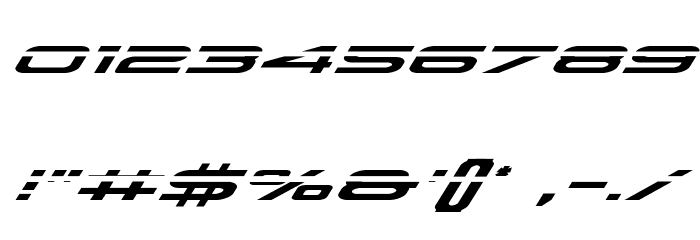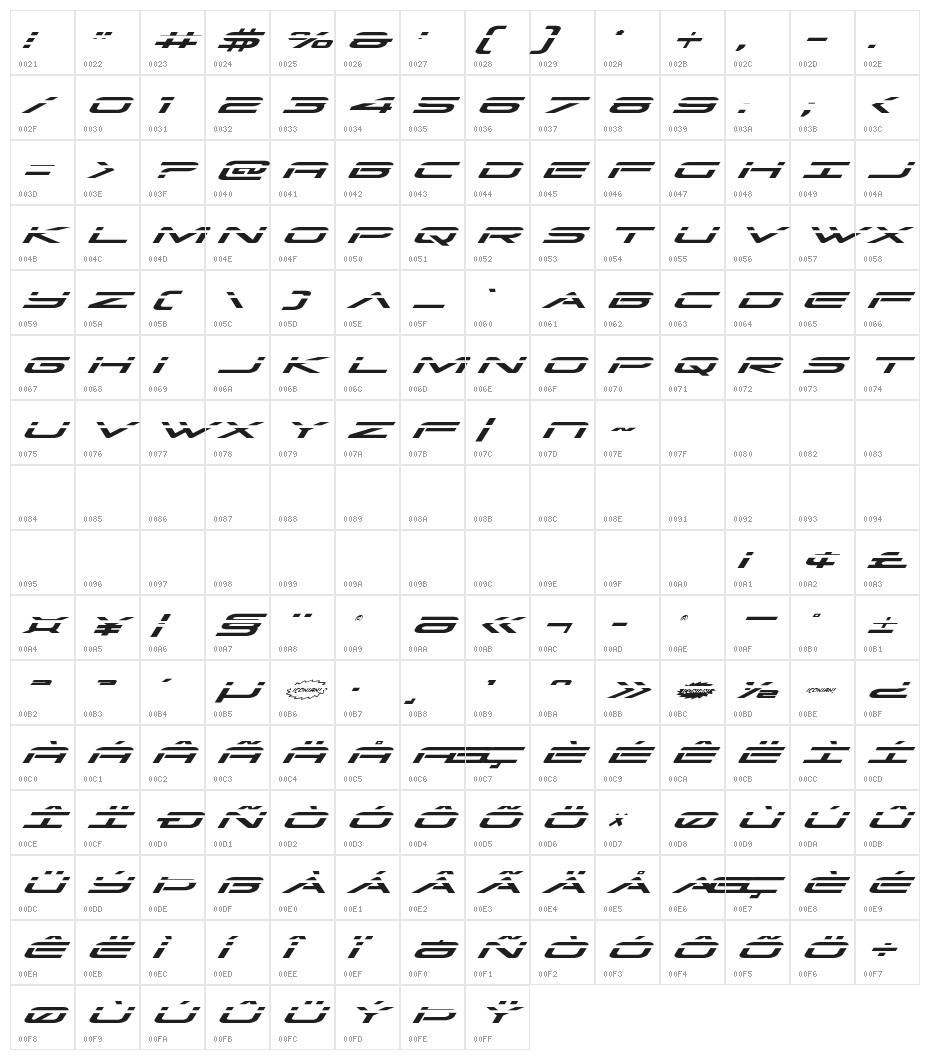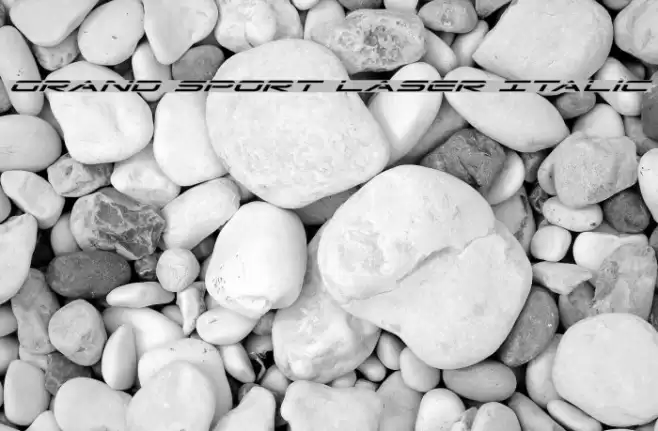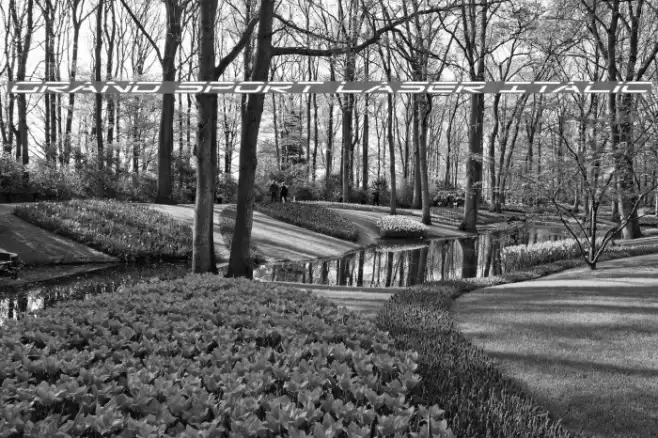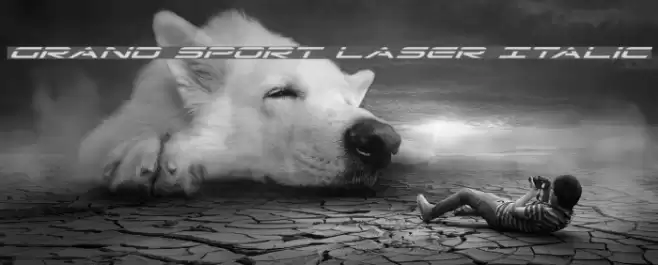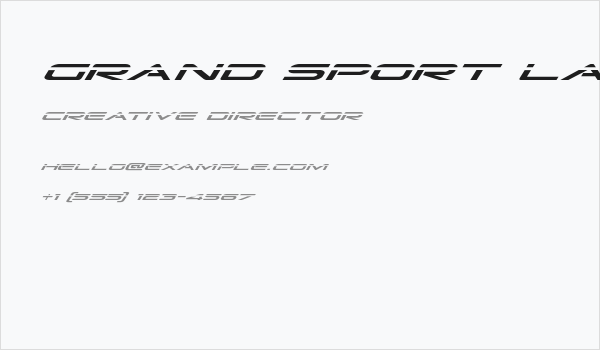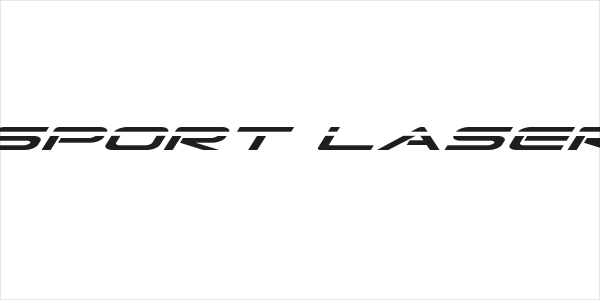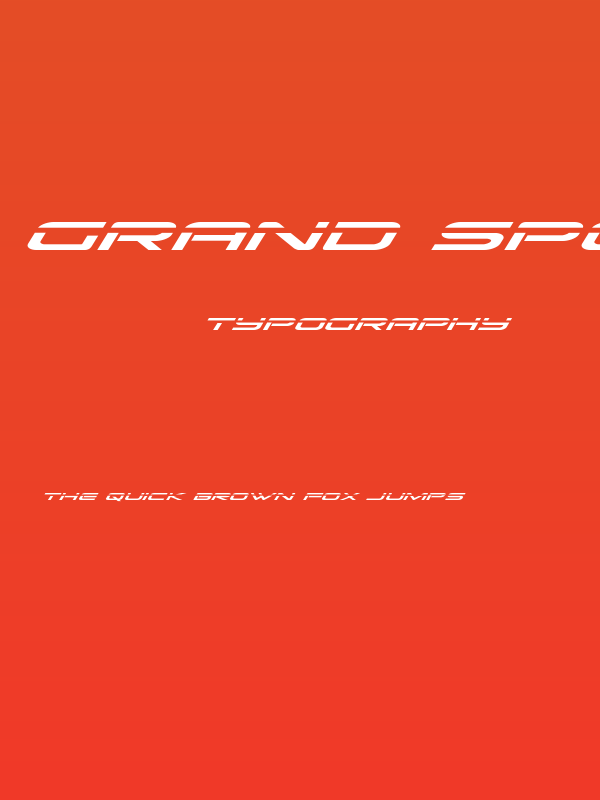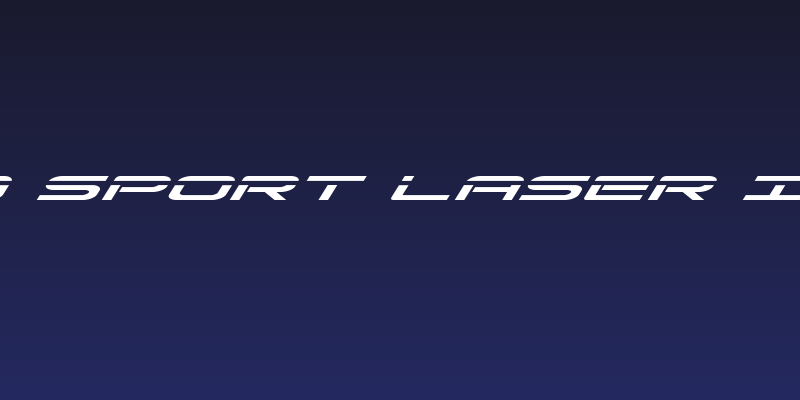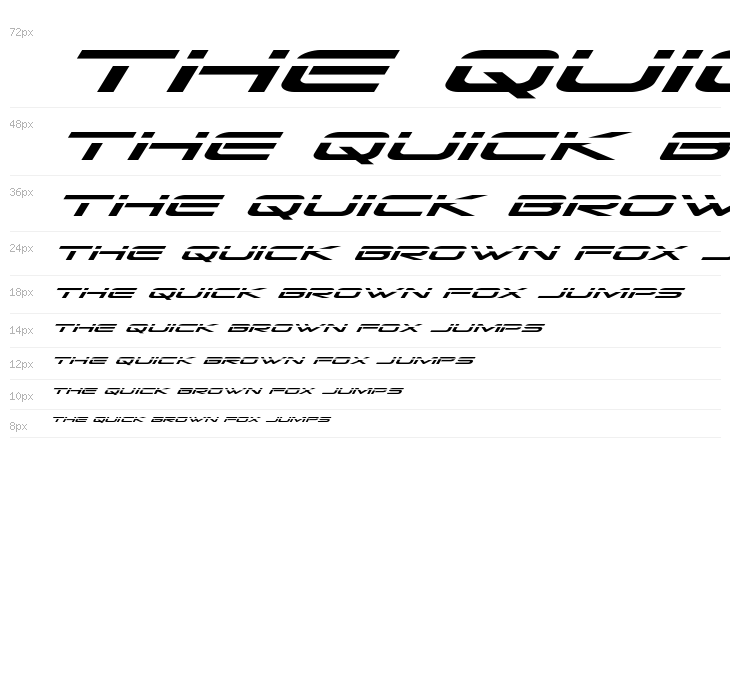
Grand Sport Laser Italic Font
Grand Sport Laser Italic Description
This font features a sleek, futuristic design with a strong emphasis on angular lines and sharp edges. The characters are italicized, giving a sense of motion and speed, reminiscent of high-performance sports cars. The strokes are consistent in thickness, providing a uniform appearance across all characters. The uppercase and lowercase letters maintain a cohesive style, while the numerals and special characters complement the overall aesthetic. This font is ideal for projects that require a modern and dynamic look.
| Use Case | Logos, Headlines, Branding |
| Proposed Projects | Ideal for automotive branding, sports team logos, technology product packaging, and dynamic web design. |